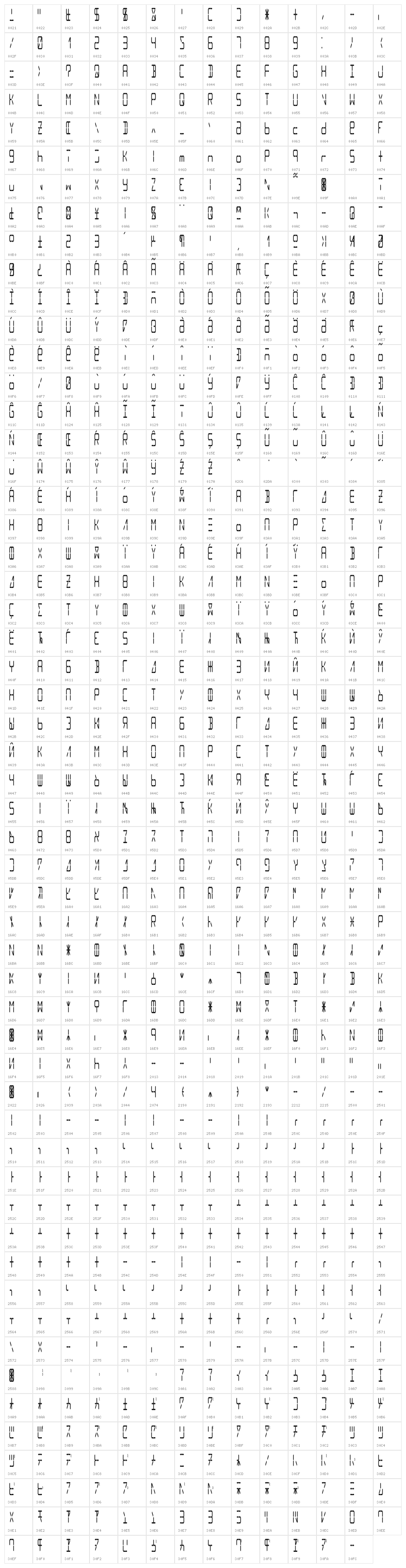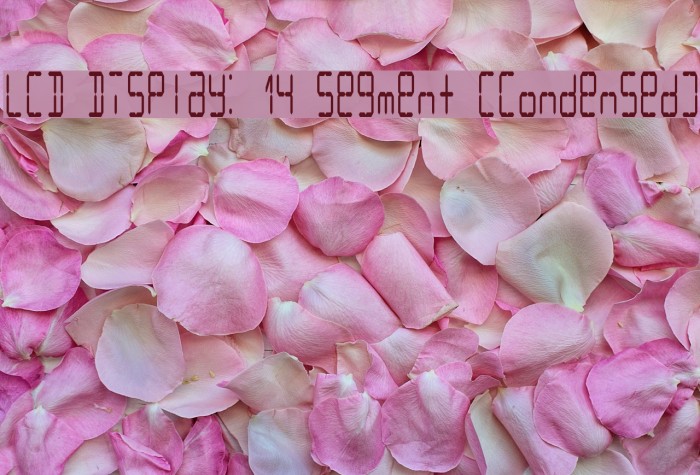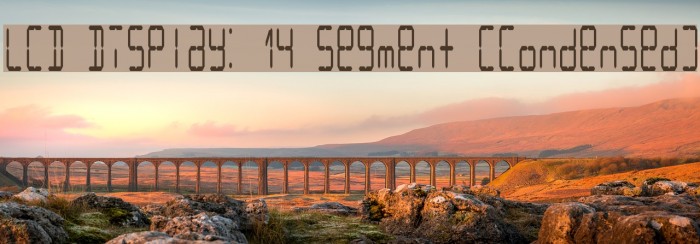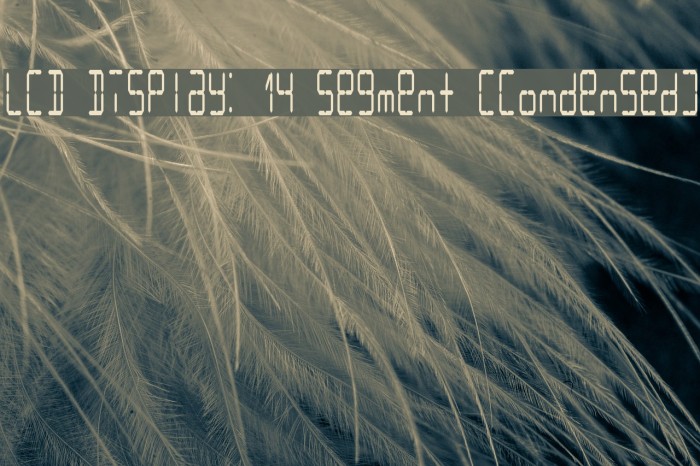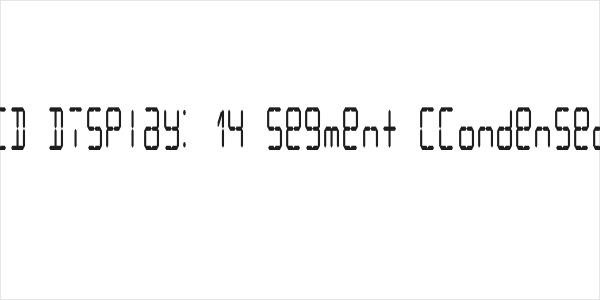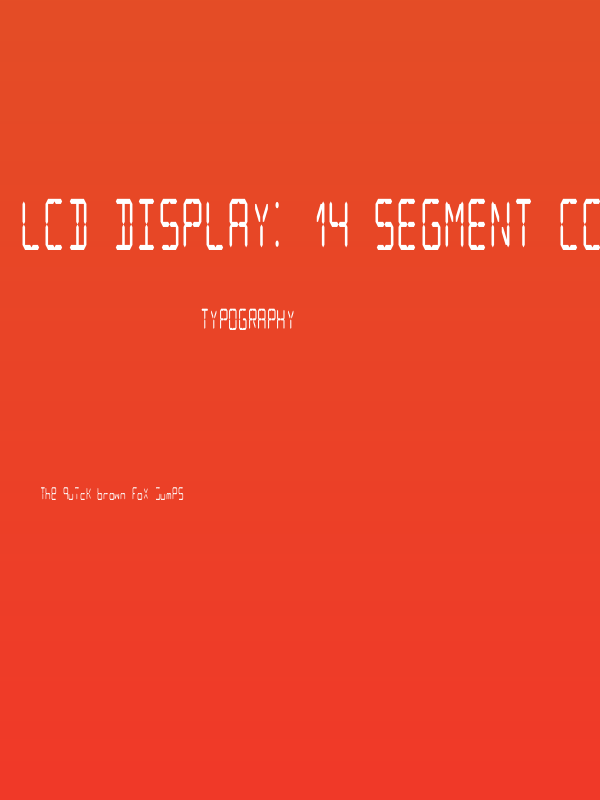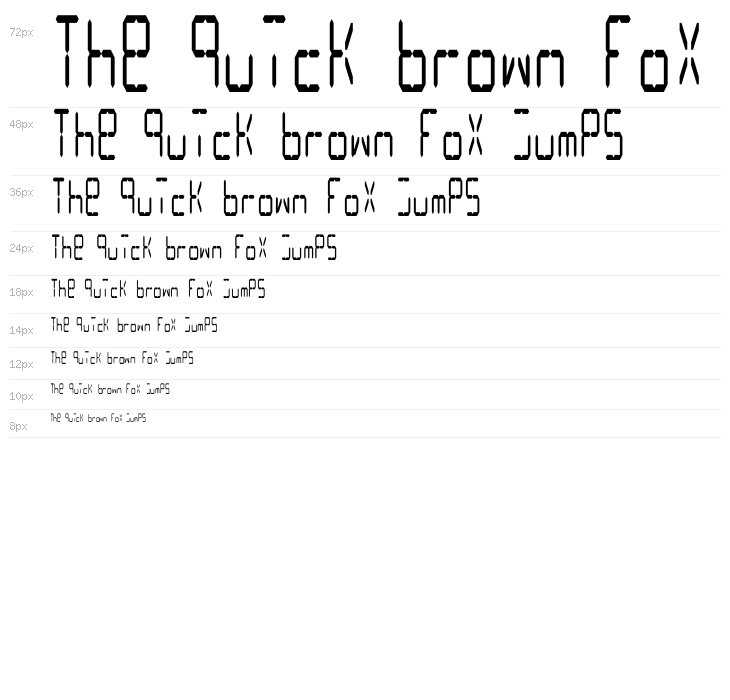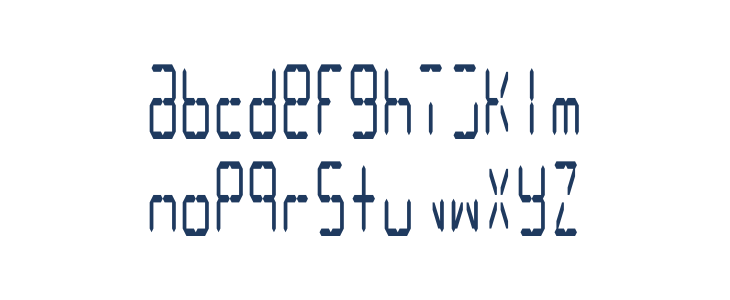
LCD Display: 14 Segment (Condensed) Font
LCD Display: 14 Segment (Condensed) Description
This font is a digital-style typeface that mimics the appearance of a 14-segment LCD display. Each character is constructed using a series of straight lines and angles, creating a geometric and technical look. The design is highly legible, with a condensed structure that allows for efficient use of space. The uppercase and lowercase letters, as well as numbers and special characters, maintain a consistent style that is reminiscent of digital clocks or calculators. The font's unique aesthetic makes it ideal for projects that require a modern, tech-savvy appearance.
| Use Case | Headlines, Digital displays, Tech interfaces |
| Proposed Projects | Ideal for digital interfaces, tech-themed designs, electronic device displays, and modern branding projects. |